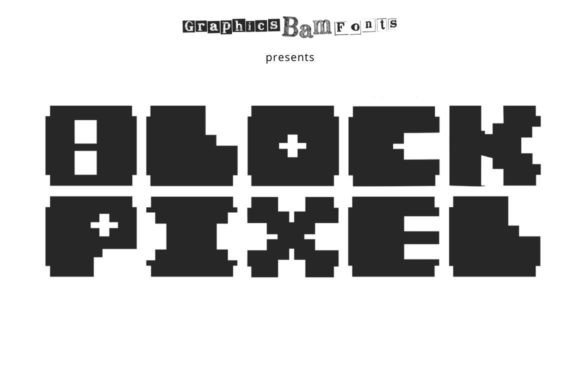
**Immerse Yourself in the Pixelated Charm of Block Pixel: A Nostalgic Masterpiece for Print Designs**
Calling all design enthusiasts! Embark on a typographic journey through time with Block Pixel, the font that embodies the raw aesthetic of retro gaming. Its bold, pixilated characters will instantly transport you to an era of nostalgic charm, evoking memories of classic arcade adventures.
Indulge in the tactile sensation of Block Pixel's rugged edges and imperfect forms. Each letter carries the warmth of handmade craftsmanship, inviting you to create designs that exude authenticity and character. Whether you're crafting vintage posters, retro-themed logos, or eye-catching packaging, Block Pixel will add a touch of timeless appeal to your creations.
Unleash your creativity and experiment with Block Pixel's versatility. Its bold presence commands attention in headlines, while its smaller sizes lend themselves to intricate details and captivating body text. The possibilities are endless, empowering you to craft a visual feast that captivates and inspires.
Join the ranks of discerning designers who appreciate the nuances of typography. Embrace Block Pixel, the font that transports your designs to a realm of nostalgic wonder. Let its pixelated charm ignite your imagination and elevate your print creations to new heights of originality.